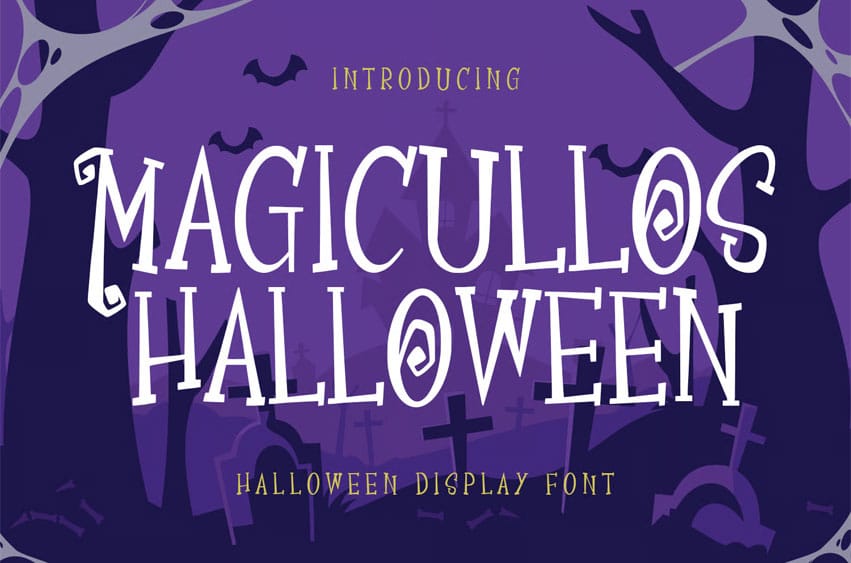
Magicullos Halloween Font is a decorative display typeface featuring bold strokes and playful characters, complete with various alternates for added creativity. This font supports over 100 languages, making it versatile for multiple uses. It’s perfect for logo design, social media graphics, movie titles, book covers, short texts, and even longer letters. Additionally, it pairs well as a secondary font with script or serif styles. Create stunning designs with the Magicullos Halloween display font!